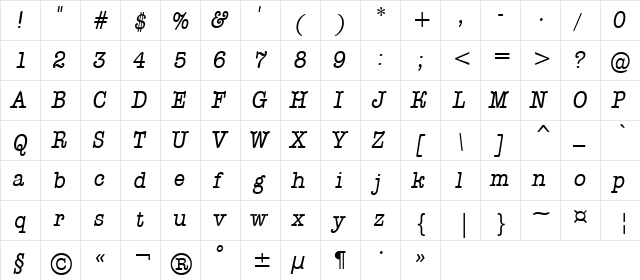
a_OldTyperNr Italic
Design Context for a_OldTyperNr Typeface
a_OldTyperNr is a composed and adaptable typeface that performs quietly and consistently across a wide range of design contexts. The slanted form adds forward momentum and visual energy.
Pro Tip: Use a_OldTyperNr for emphasis, pull quotes, and subheadings where its slanted energy can add rhythm to the layout.